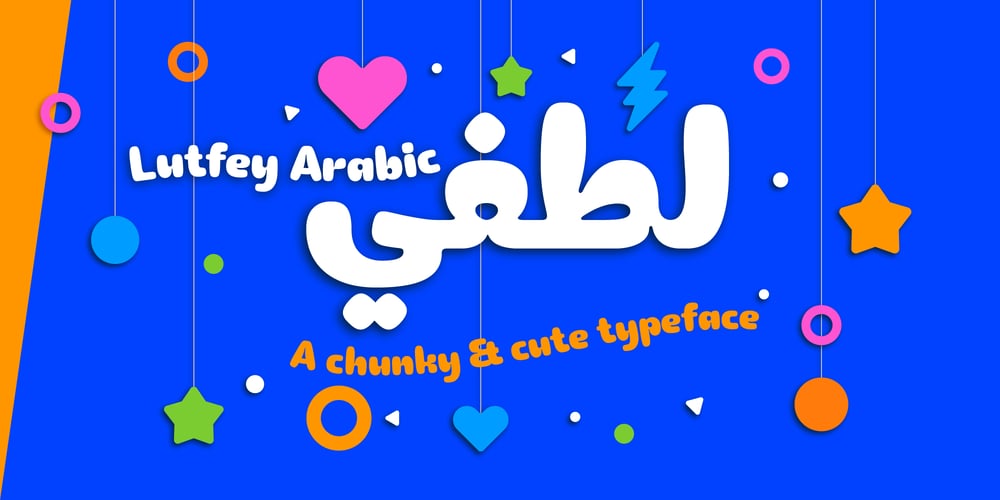
Lutfey Arabic Font Family was designed by Nur Syamsi, Bustanul Arifin and published by NamelaType. Lutfey Arabic contains 2 styles and family package options. Lutfey Arabic is new version of Lutfey with the addition of Arabic glyphs (Arabic, Urdu, Kurdish, Pegon and Farsi.It is a chunky & cute typeface, visually featuring bold, firm and gentle characters.It’s has smooth lines on each side, especially on the outside, with subtle ink-trap details at every corner.